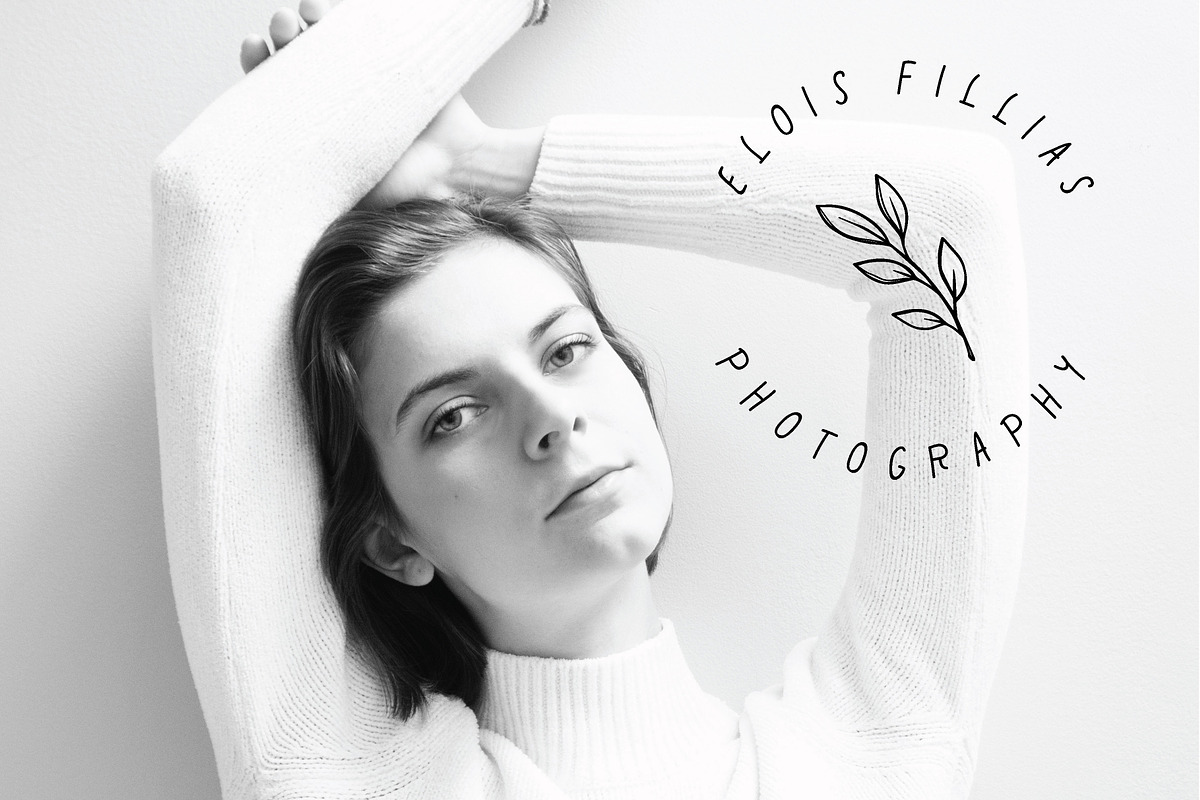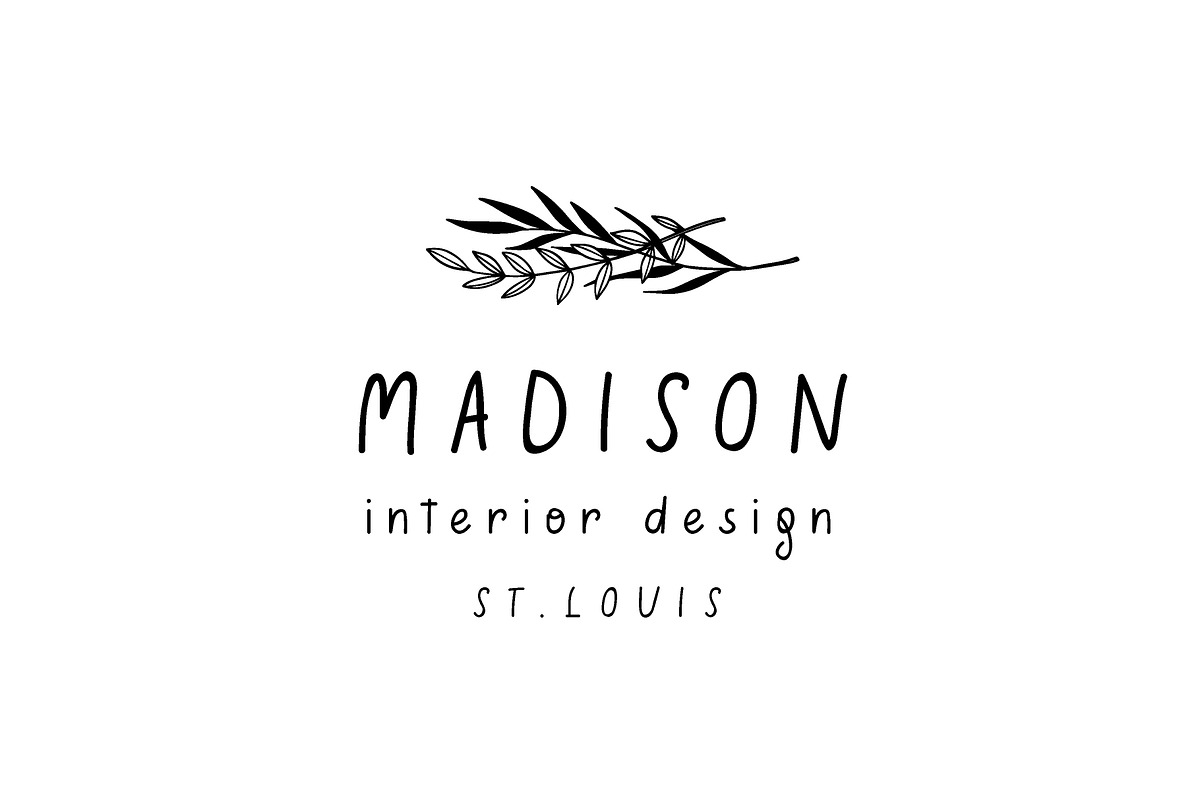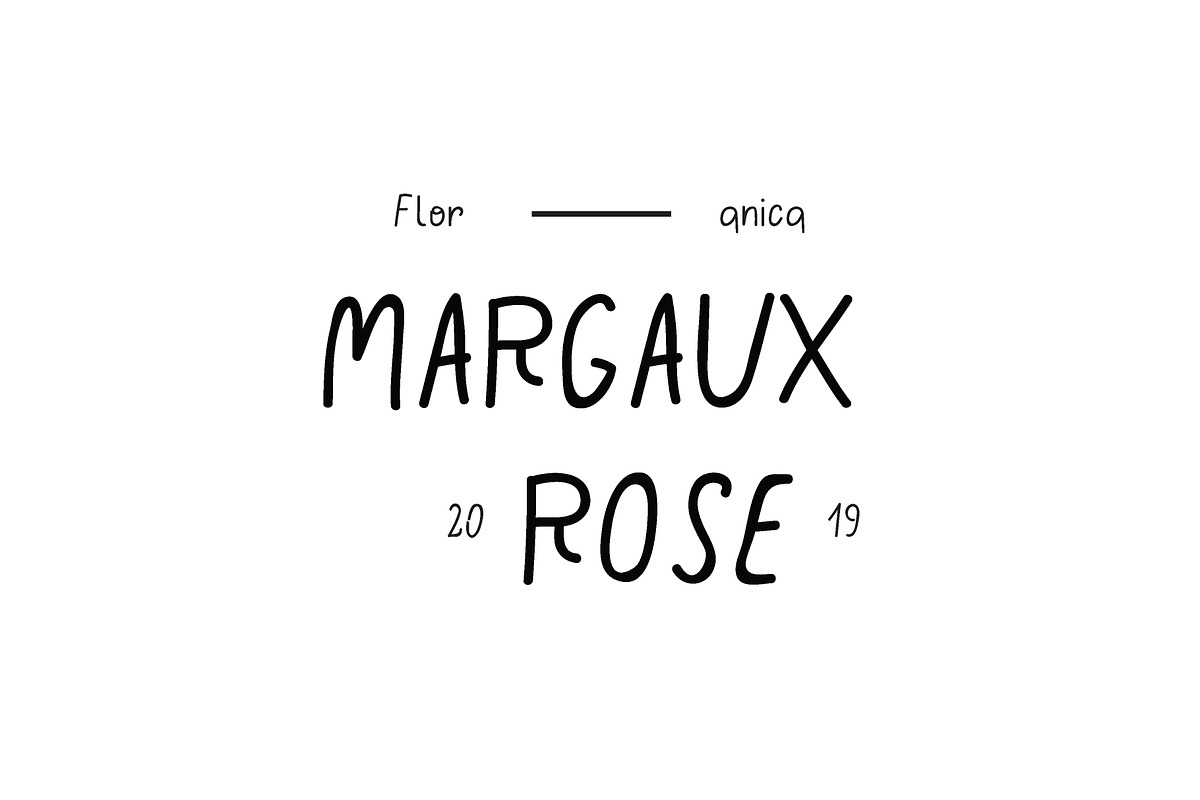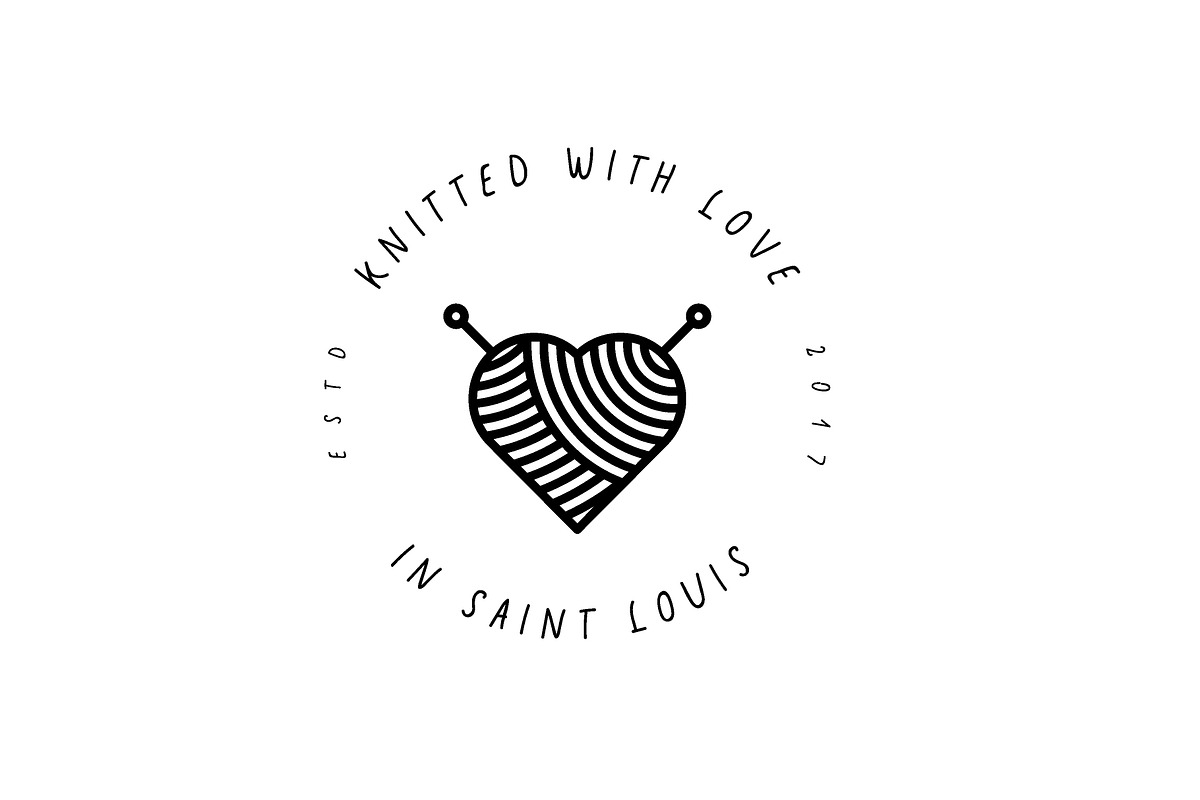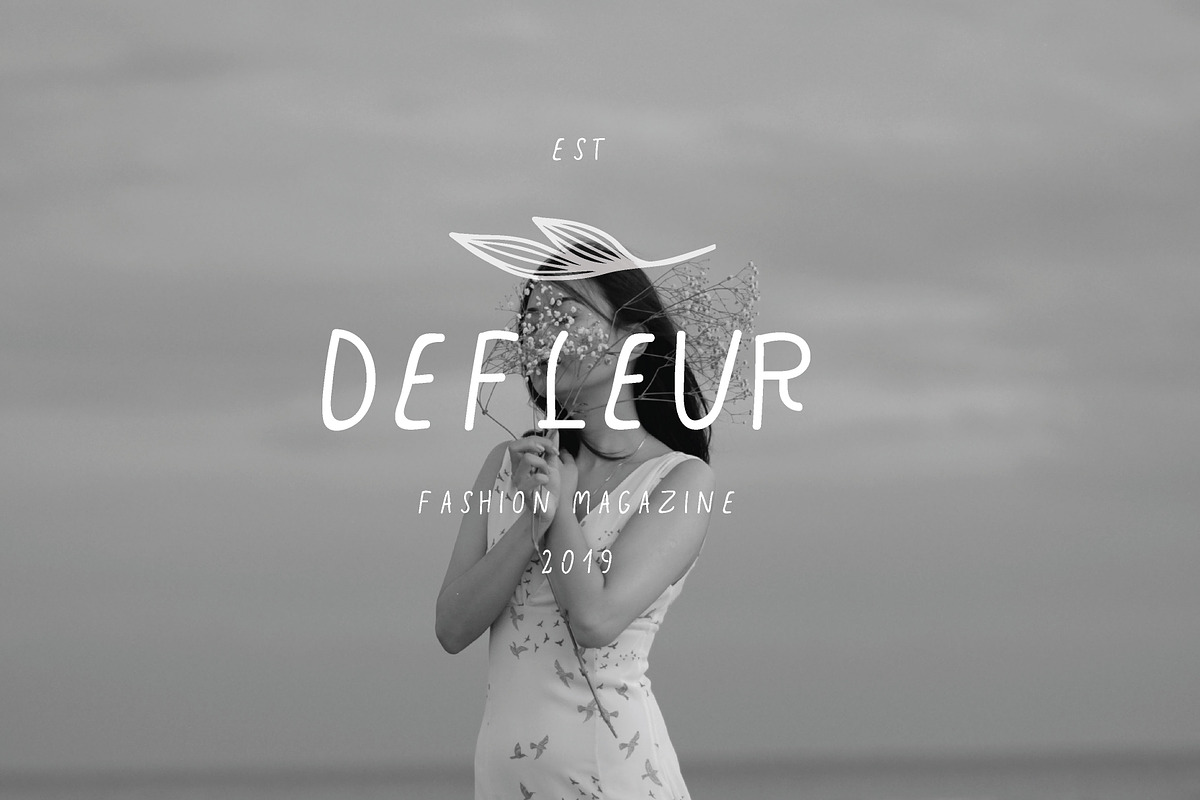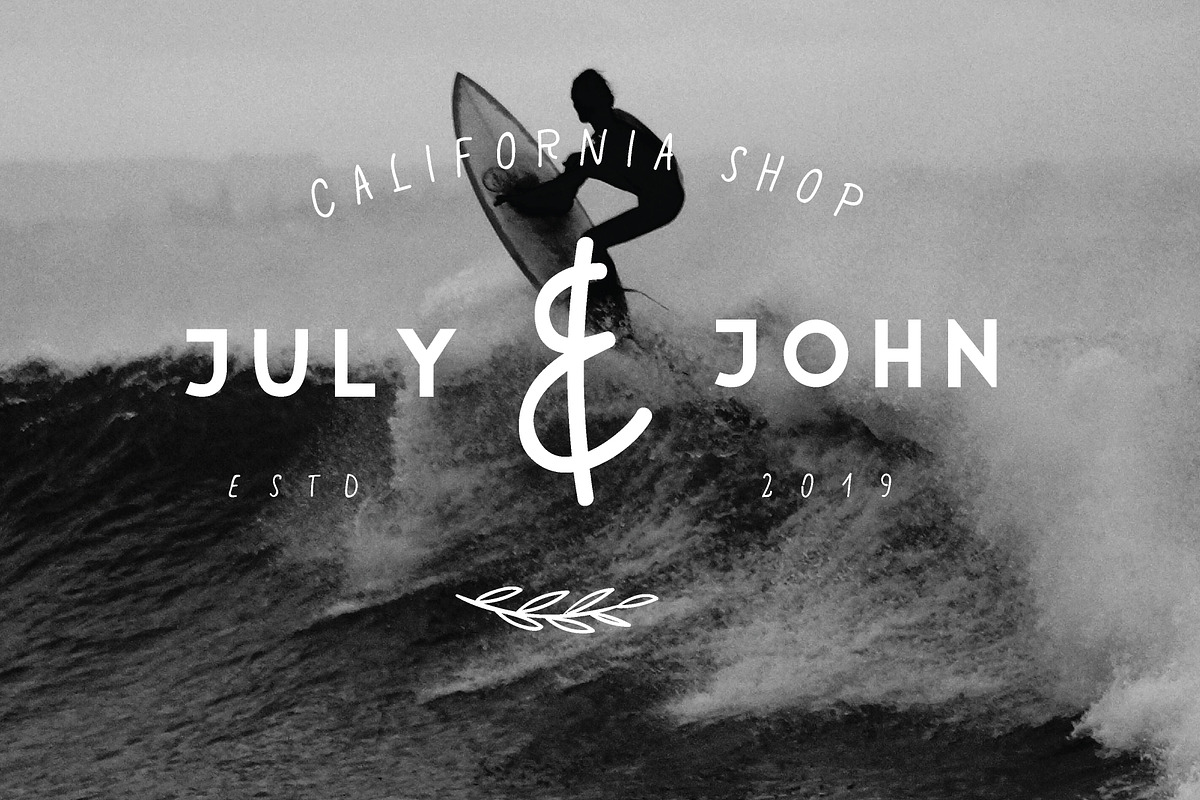
Jenice | display font
Jenice is a playful sans-serif handwritten font with imperfectly perfect edges. With a full suite of uppercase and lowercase letters, Jenice can be used in many style contexts and design environments. Perfect for poster or t-shirt design, magazines, websites, logos, boho wedding invitations and much more!
Jenice is paired with Shifter sans serif on the display pictures.
Jenice handwritten font with a whole set of uppercase & lowercase letters
Language support including: German, Spanish, Italian, Swedish, Danish, Norwegian, Icelandic, French, Portuguese, Hungarian and more (please check out the whole alphabet below)